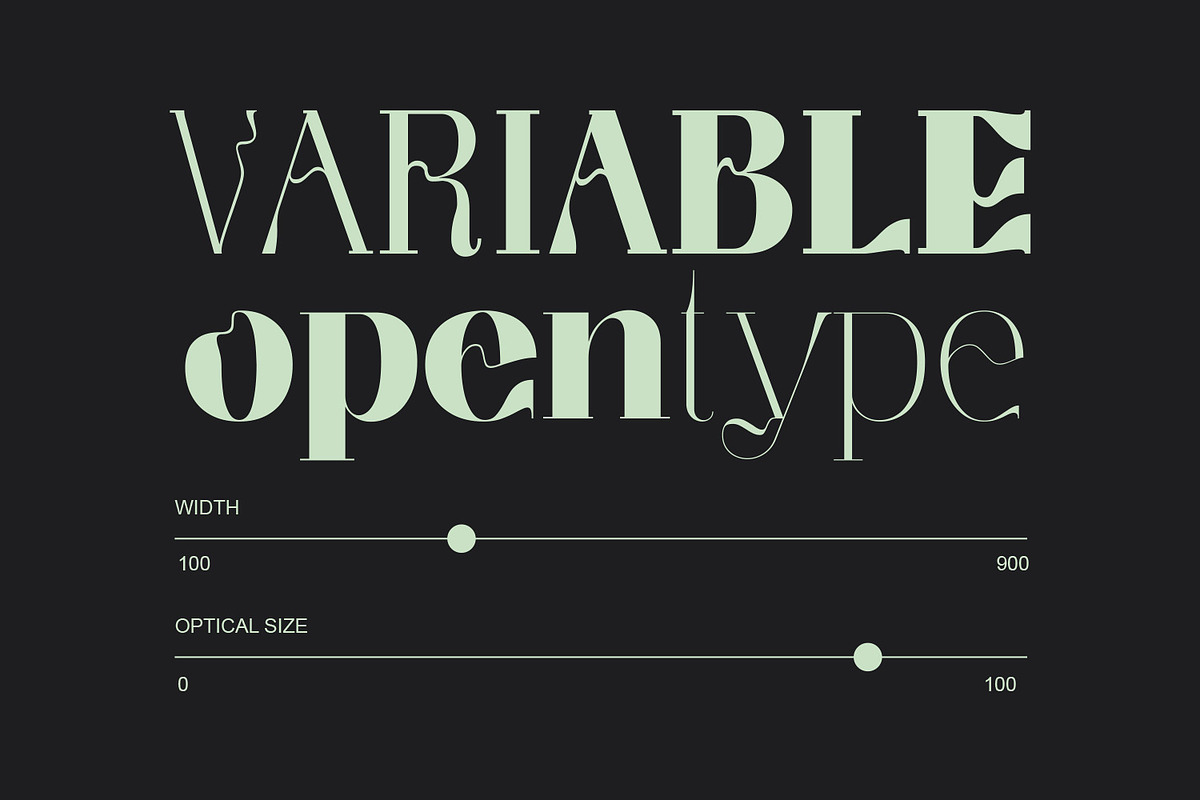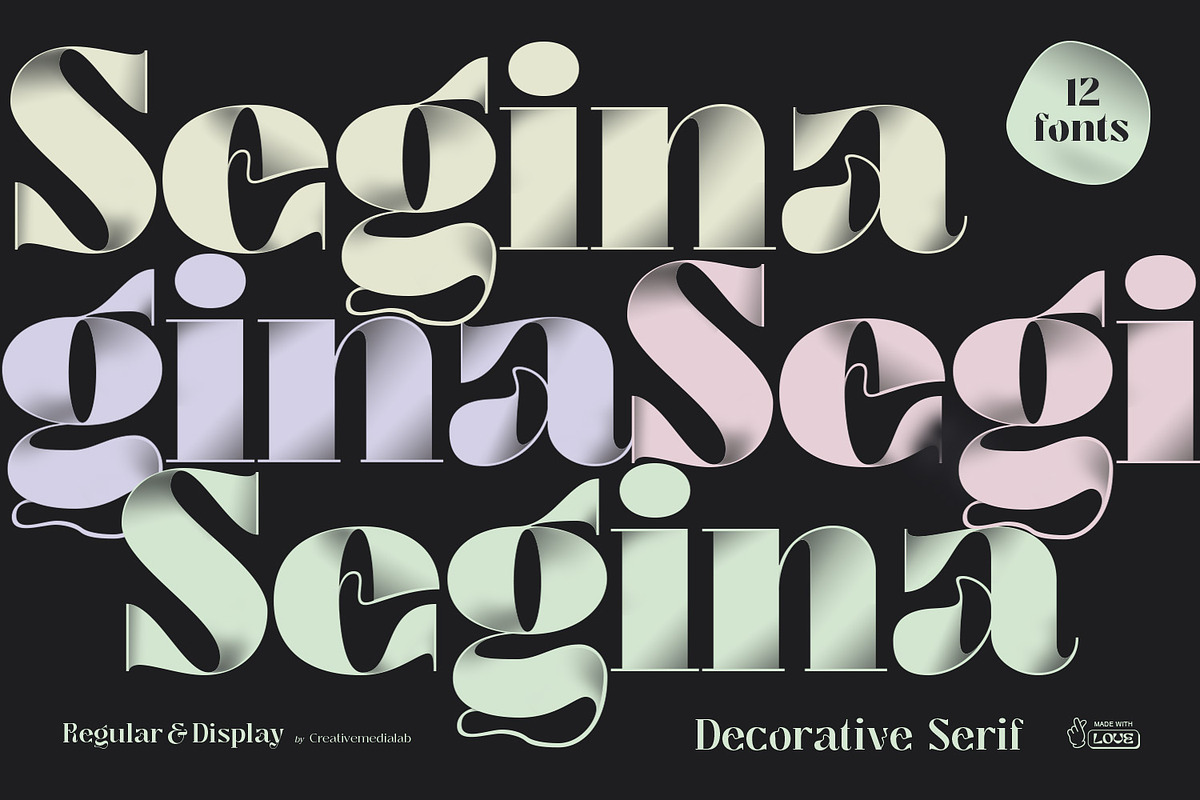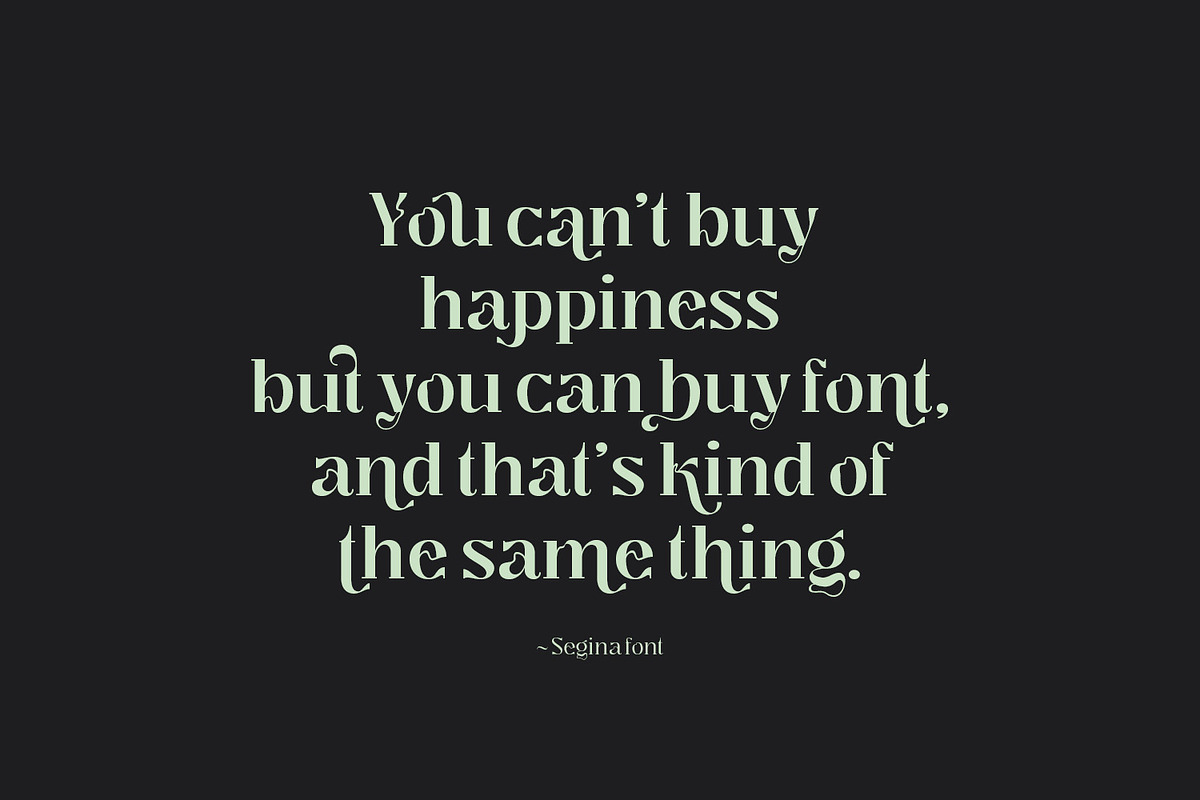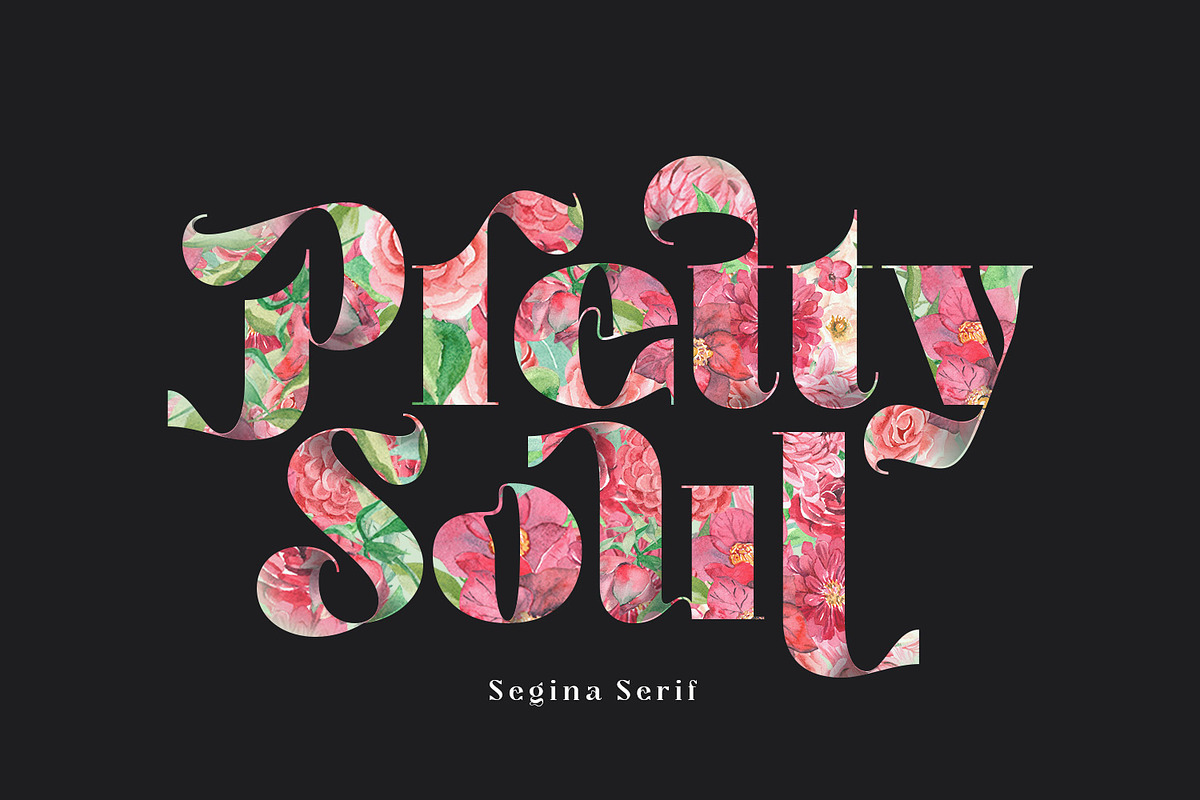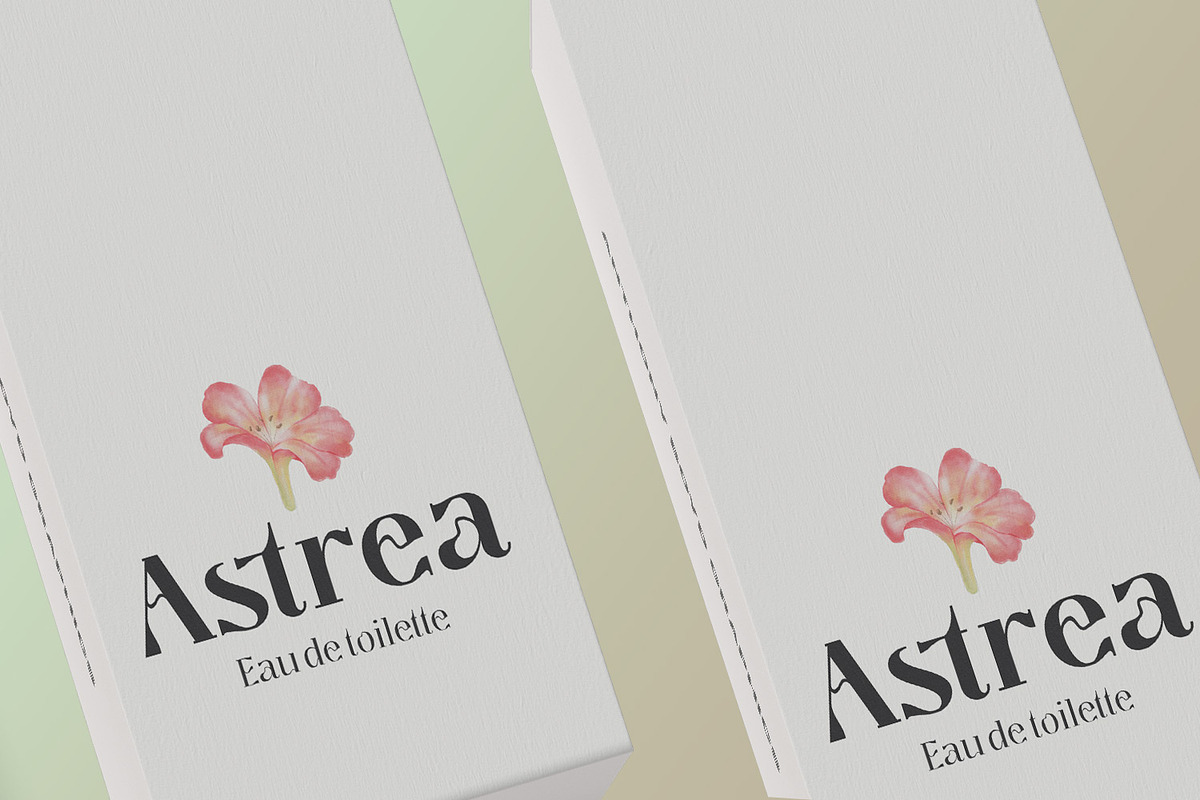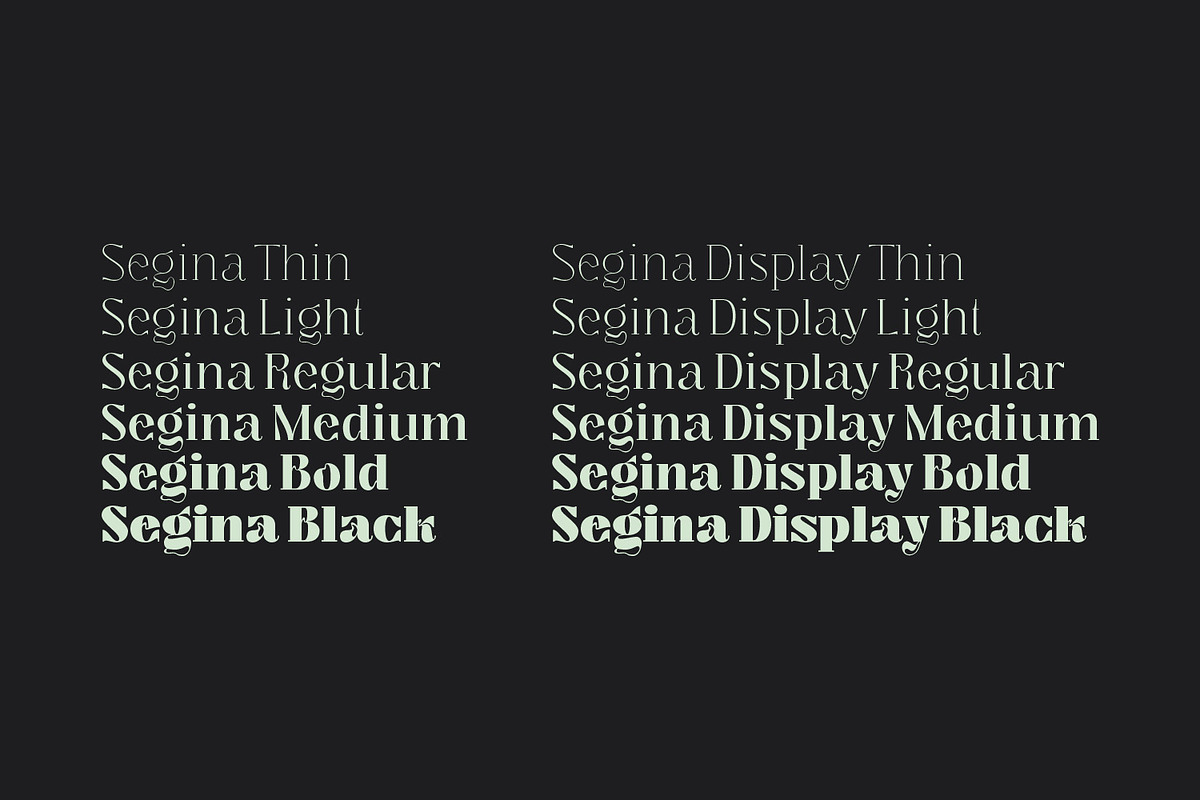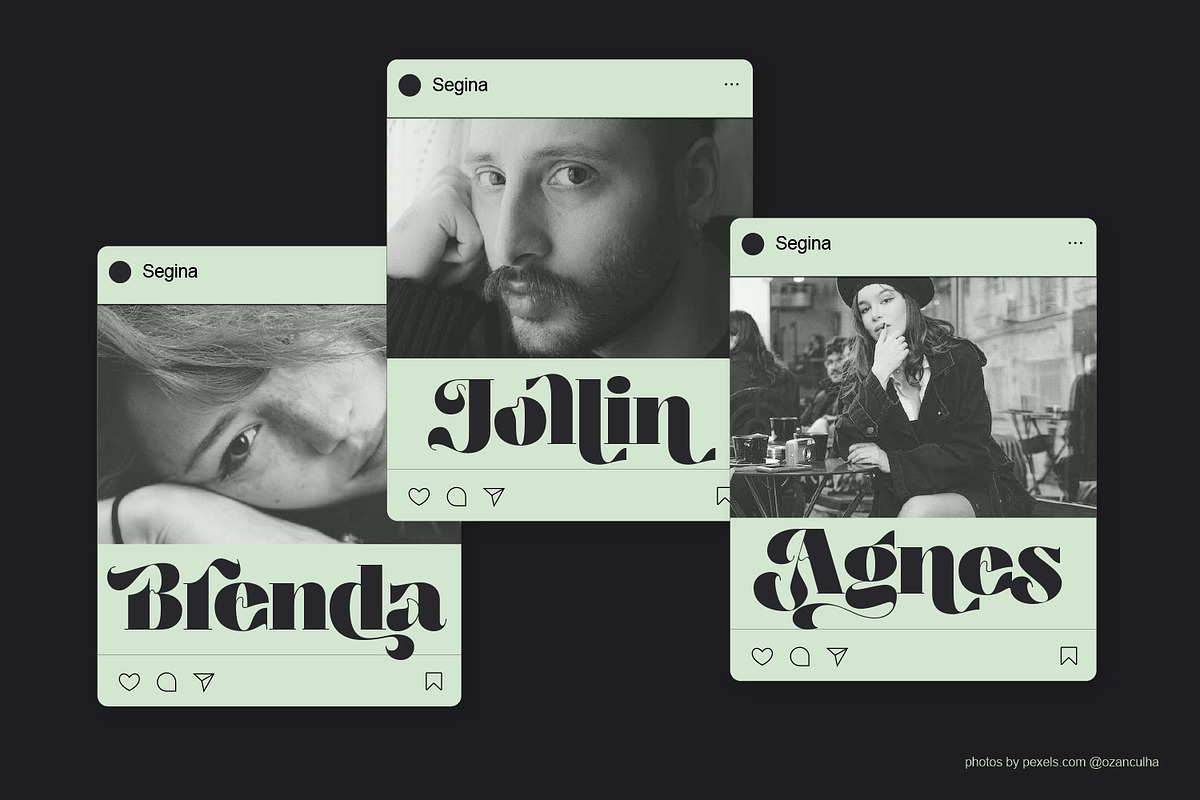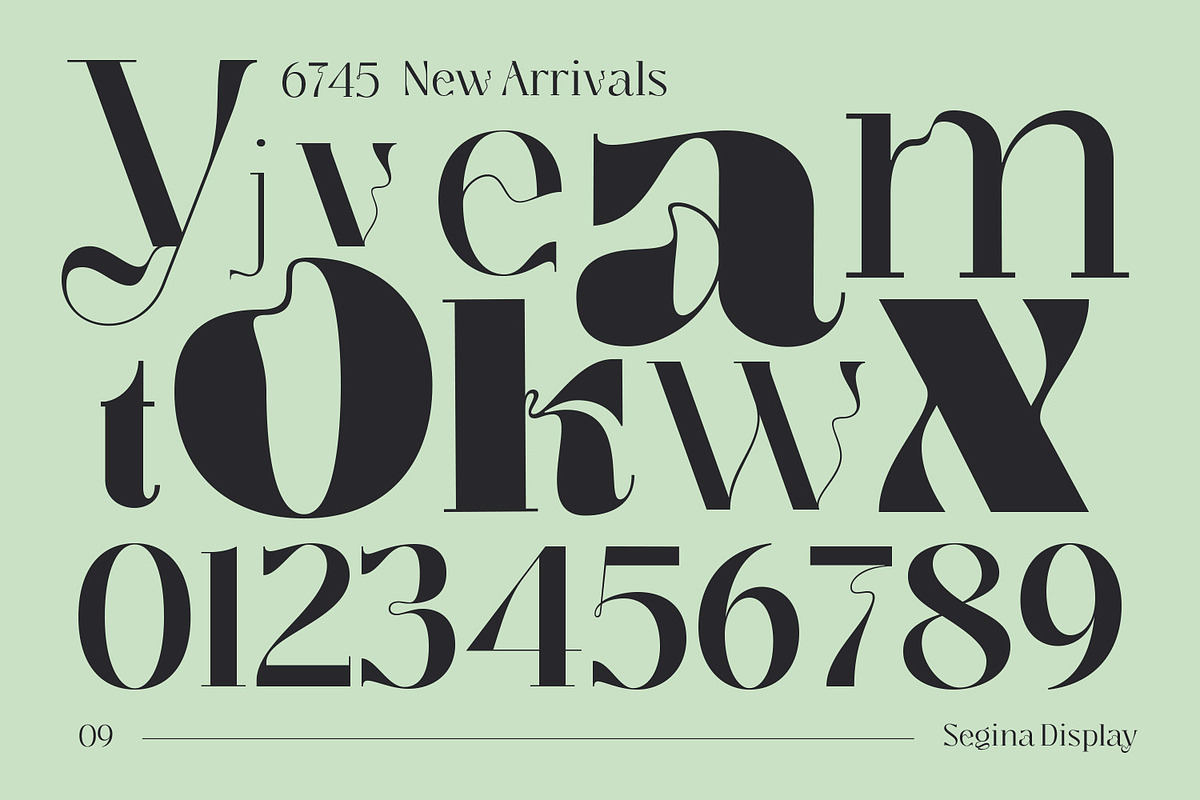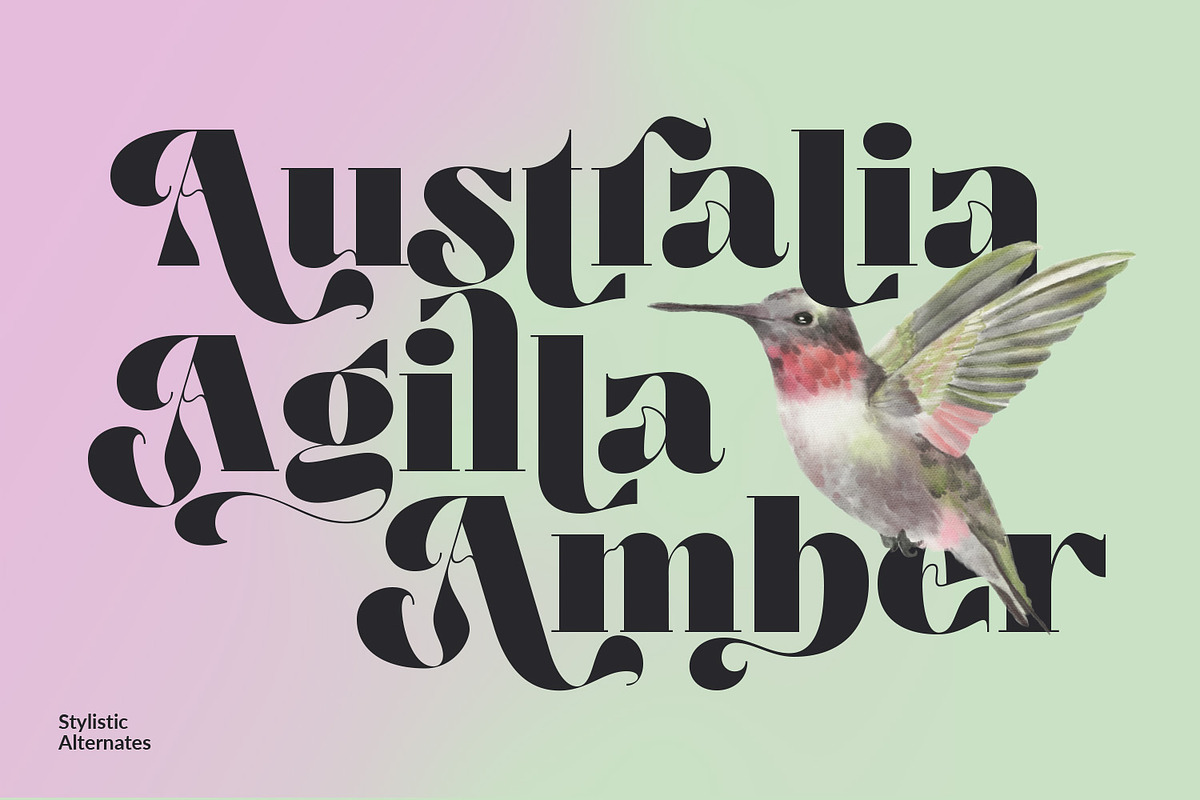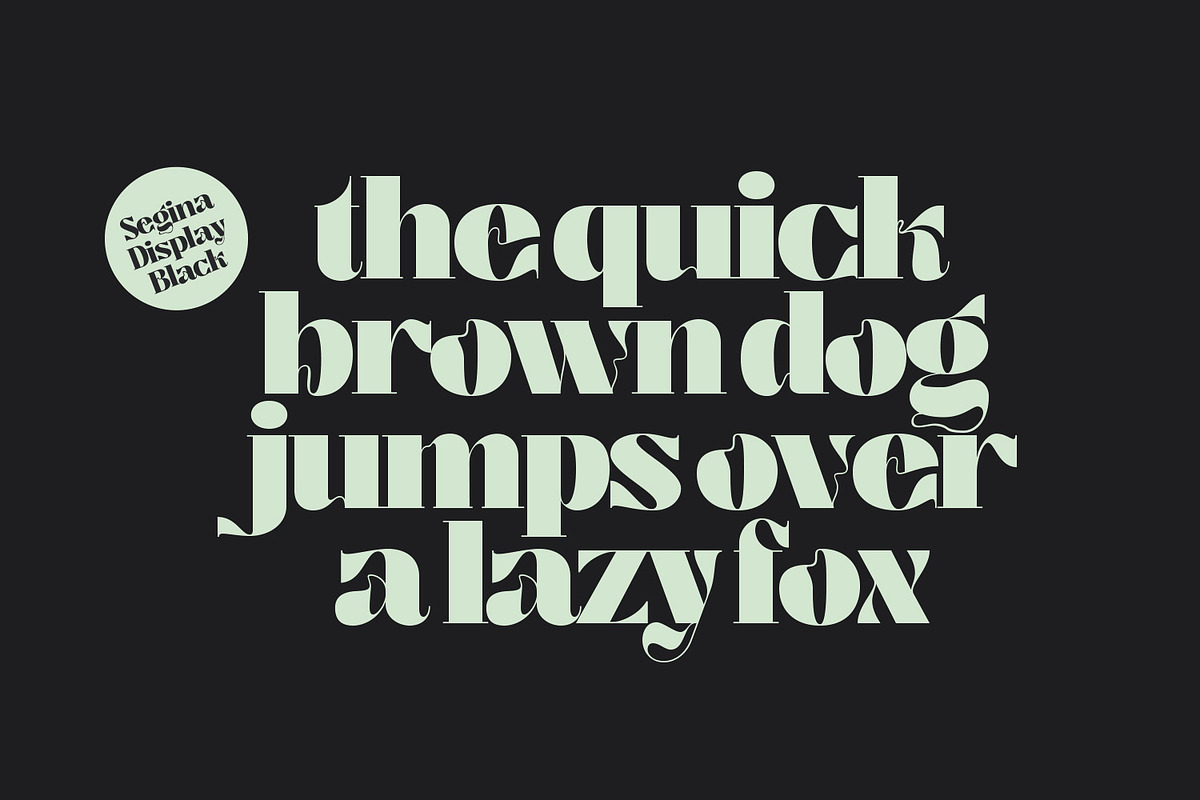
Segina - Decorative Serif
Segina combines a high-contrast serif with a modern psychedelic font that is slightly wavy unique, and attractive.
Segina consists of two Regular and Display options, each containing six weights from thin to Black. And also variable format with two axes, weight, and optical size.
Segina has many alternative characters that can be adjusted to create a heading, title or logotype.